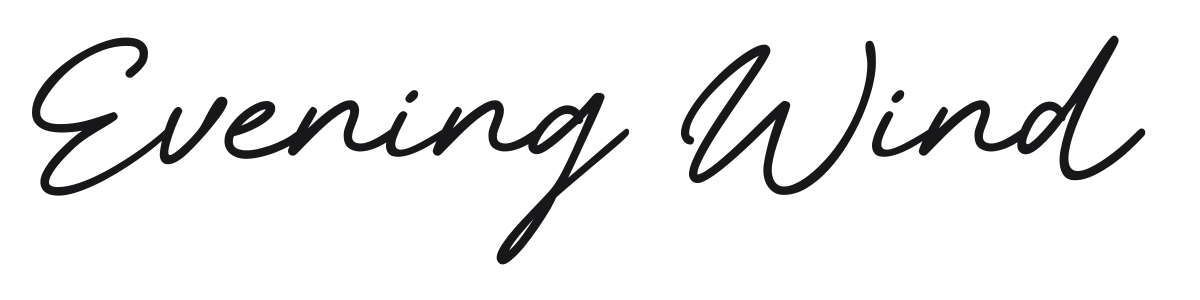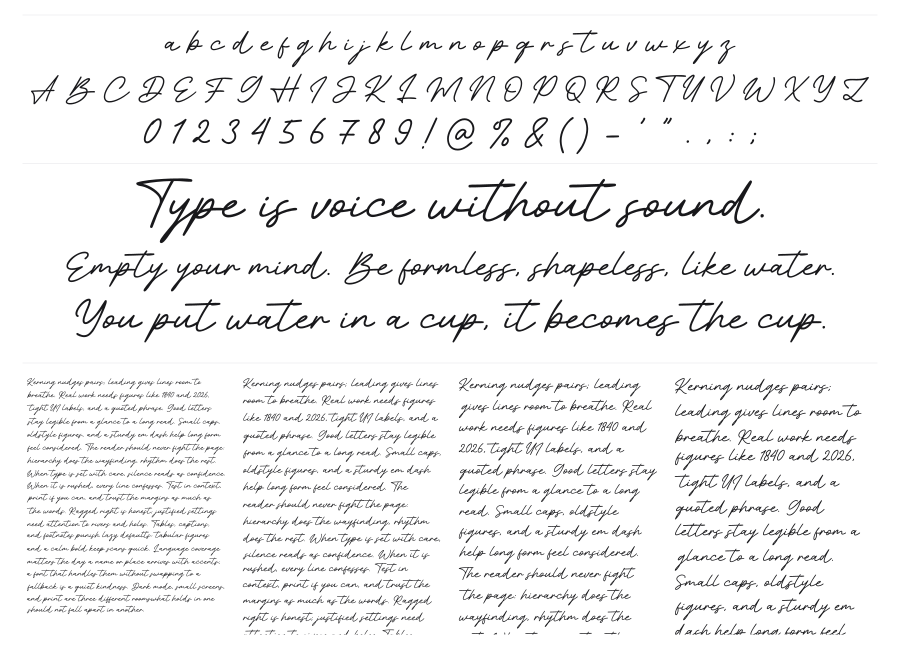
Evening Wind
Evening Wind is a casual connected script with a loose, handwritten flow and thin monoweight strokes. Long looping ligatures link characters across the baseline, giving text a natural, unhurried rhythm that feels like a quick but elegant signature. It works best at large sizes where its flowing connections and relaxed personality can breathe.